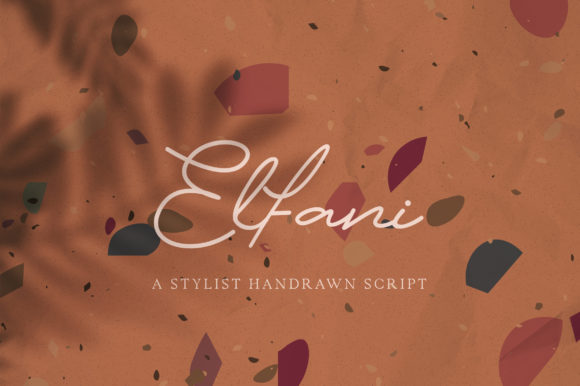
Behold, the Elfani Font – a script font of enchanting artistry, crafted to captivate hearts and ignite imagination. Step into a world of boundless creativity, where words dance with grace and elegance, leaving a trail of visual wonders. Let your designs bloom with the allure of Elfani, a font that weaves a spell of sophistication and charm.
With its sweeping lines and graceful curves, Elfani is the muse for crafting word art of unparalleled beauty. Whether you're designing invitations that whisper elegance, creating logos that exude refinement, or simply adding a touch of magic to your digital creations, Elfani is your font of choice. Its versatility knows no bounds, adapting seamlessly to any project, any style, any vision.
Immerse yourself in the world of Elfani and discover a font that ignites your creativity, sparks your imagination, and leaves you breathless. Experience the joy of crafting designs that evoke emotion, convey messages with impact, and create a lasting impression. Elfani is more than just a font; it's an artistic gateway to a world of endless possibilities.
Unleash the power of Elfani today and let your designs take flight. Let your words dance with newfound elegance, your creations radiate sophistication, and your imagination soar to new heights. With Elfani as your creative companion, the possibilities are endless. Transform your designs into works of art, captivate your audience, and leave a lasting legacy of beauty and creativity.